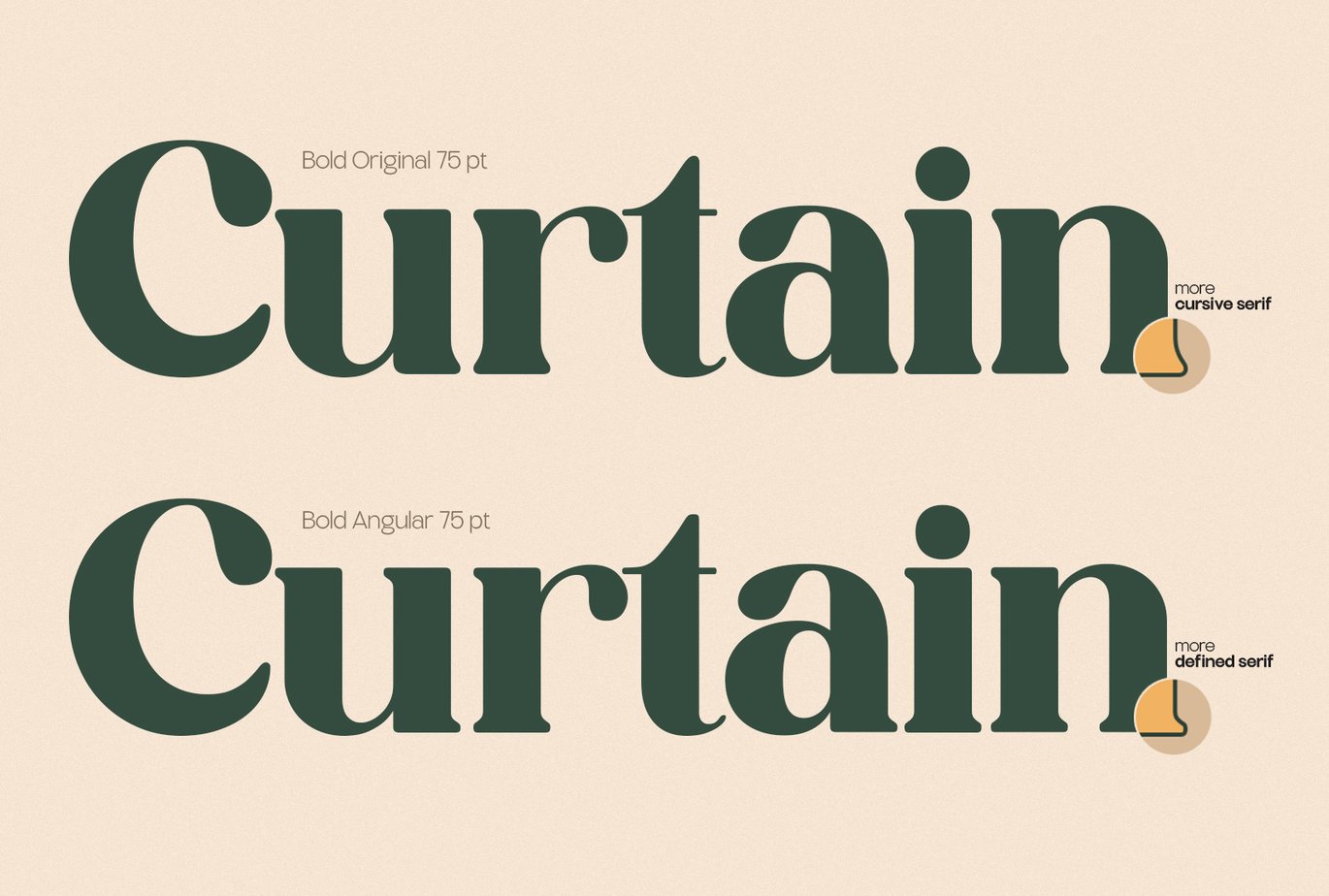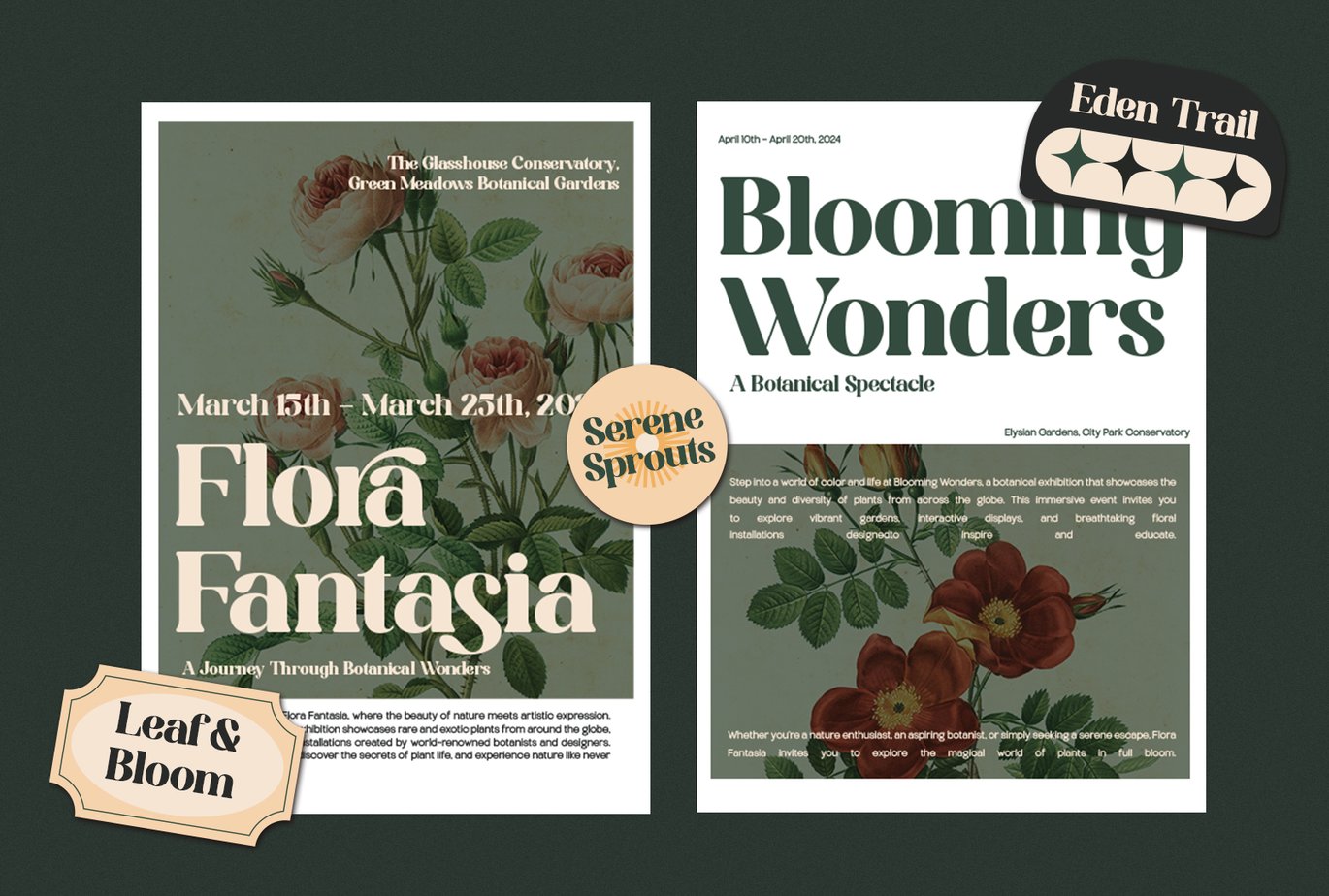
Sodabery Retro Serif Family Font
Sodabery Retro Serif Family Font is a versatile typeface ideal for various projects, including logos, branding, posters, blog headers, advertisements. The free version includes a full set of uppercase and lowercase letters, available in OTF format.